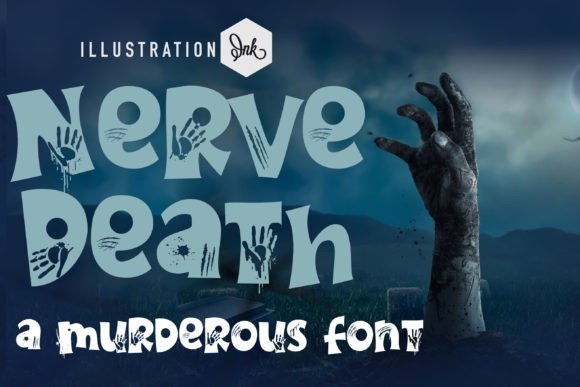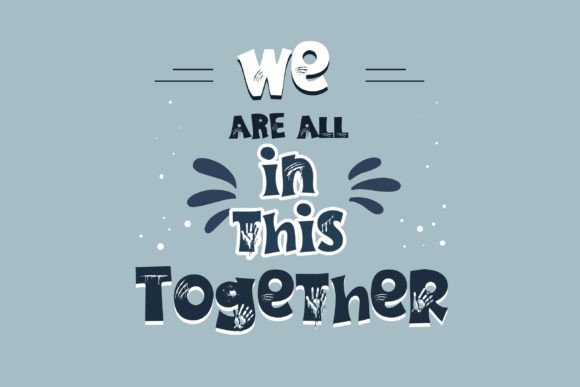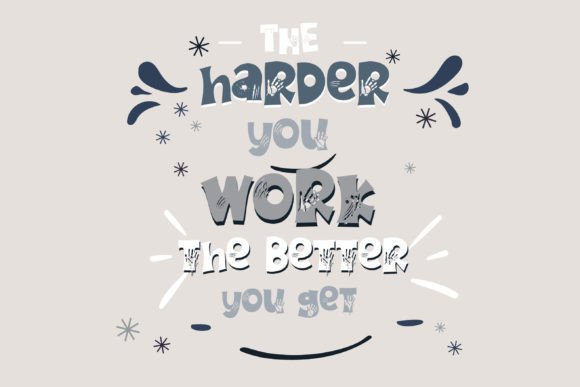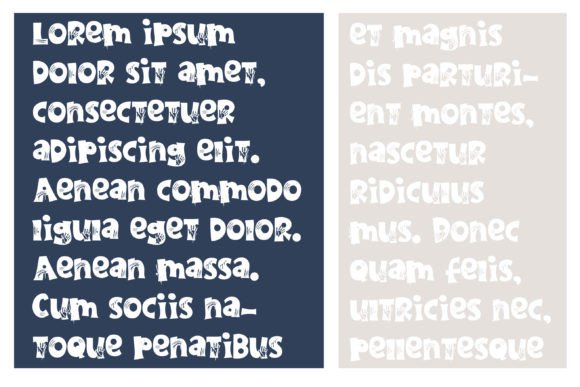
Nerve Death Font
About the Nerve Death Font
Discover the charm of Nerve Death Font. This font is a perfect blend of modern aesthetics and classic appeal. This hand-crafted font features terrifying bloody hand prints and signs of murder throughout.
Nerve Death Font’s aggressive aesthetic makes it ideal for projects requiring a bold, shocking impact. It excels in short headlines, posters, and horror-themed branding where its unsettling details can be prominently displayed. Avoid using it for body text or UI elements; its highly stylized nature compromises readability in continuous text.
Consider pairing Nerve Death Font with a clean sans-serif like Helvetica Neue for contrast, or a stark geometric sans-serif for a more modern, brutalist feel. A simple serif like Garamond could add a touch of unexpected sophistication, highlighting the font’s hand-crafted quality while maintaining visual tension.
The overall personality is undeniably rebellious and intense. It’s a powerful choice for brands aiming for a visceral, edgy image—think horror films, extreme sports, or underground music.